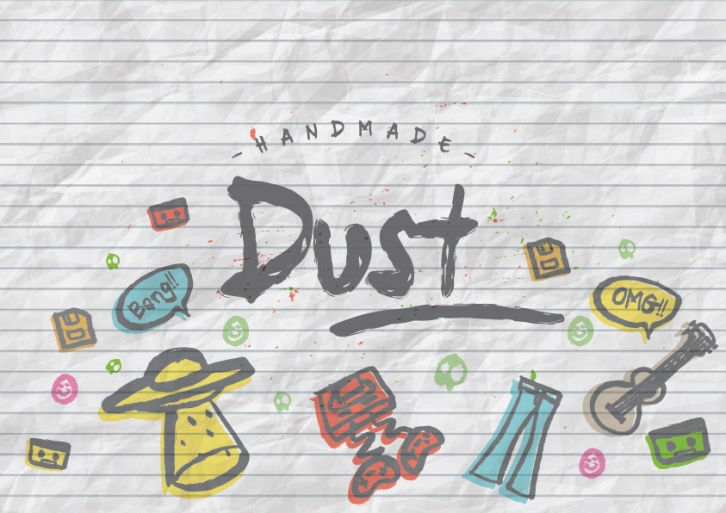
Dust is a beautiful font that was designed by drizy studio. It's a great choice for designers and creatives who need such a font. It was released on June 24, 2016 and the file size is 14.13 MB. Dust may give a more youthful, expressive and casual look to your project. It is a very beautiful, refined, elegant, and high-quality font.